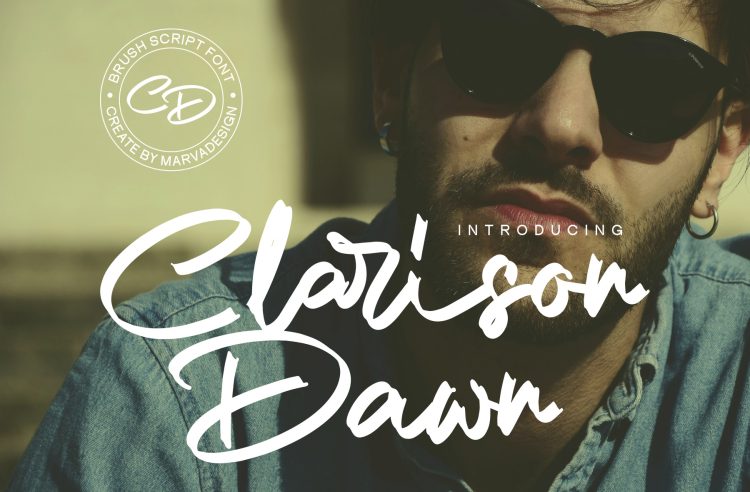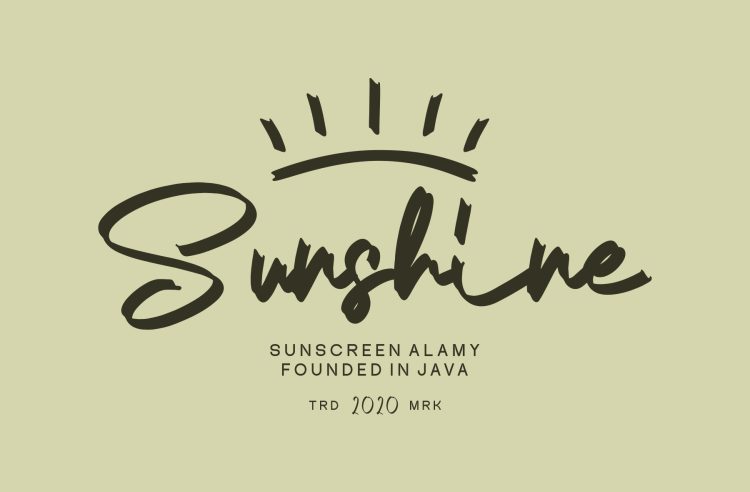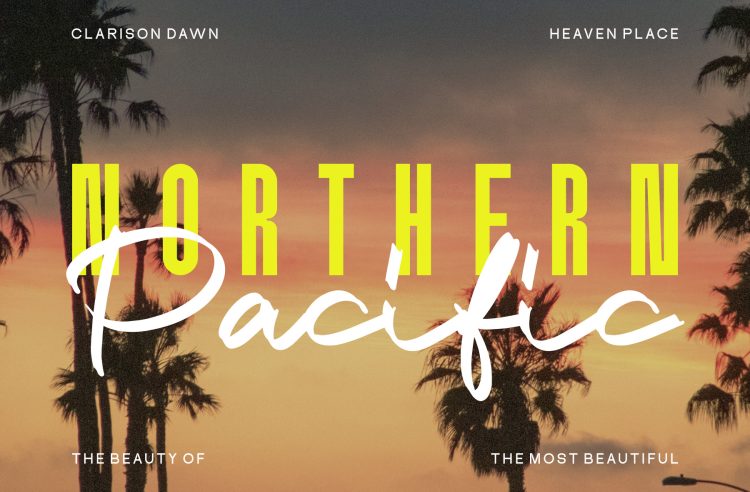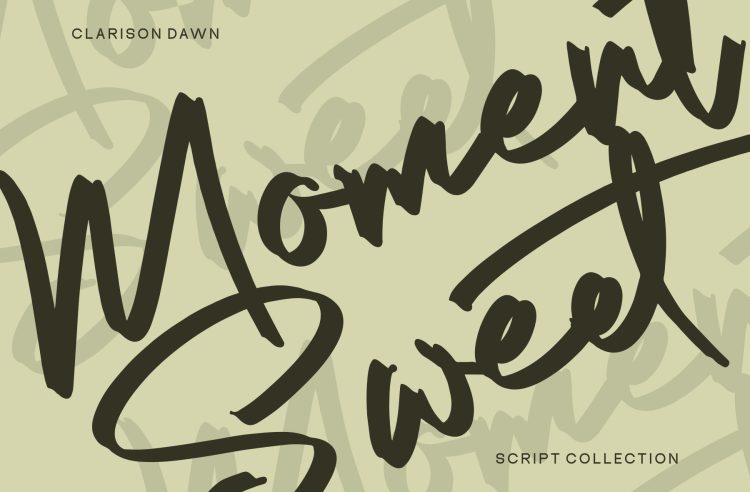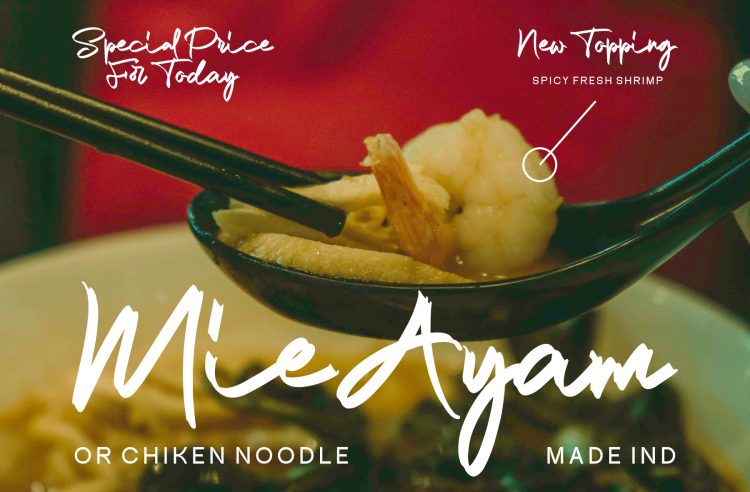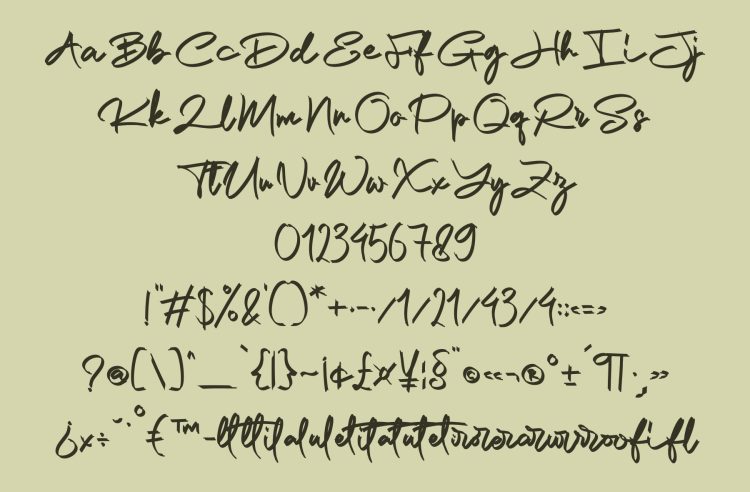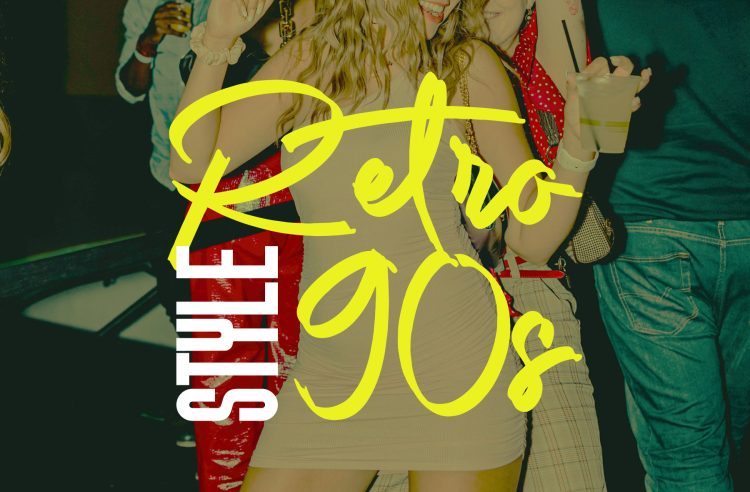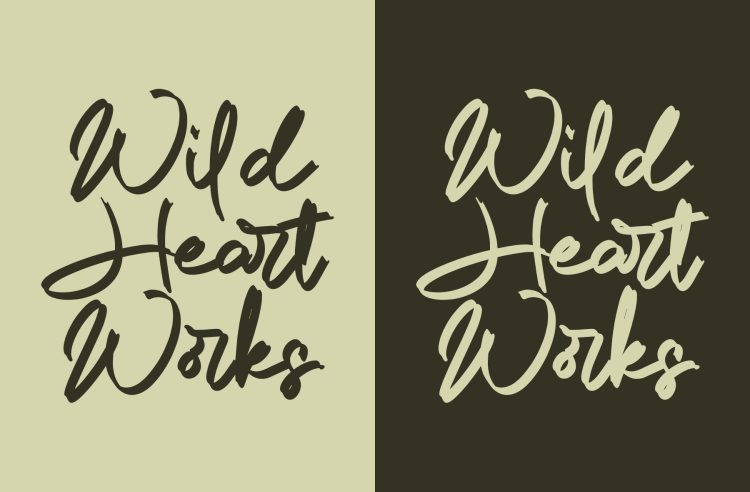
Font Clarison Dawn is a brush script font characterized by its expressive, hand-painted style that mimics natural brush strokes. This font exudes a sense of casual elegance, creativity, and personality, making it ideal for branding, social media graphics, poster designs, and fashion-forward visual identities.
Each letterform is crafted with a dynamic flow and organic texture, creating a visually compelling script that feels both modern and artisanal. The strokes vary in thickness, offering a sense of movement and authenticity often seen in hand-lettered artwork. Ligatures and swashes may be present to enhance the script’s fluidity, ensuring smooth transitions between characters.
Used against photographic and solid color backgrounds in the examples, this font stands out boldly while maintaining readability. Its design communicates a youthful, energetic vibe, perfect for lifestyle, retro, or artistic themes. Overall, this brush script font blends contemporary style with handcrafted charm, making it a versatile asset for designers aiming to convey individuality and flair.